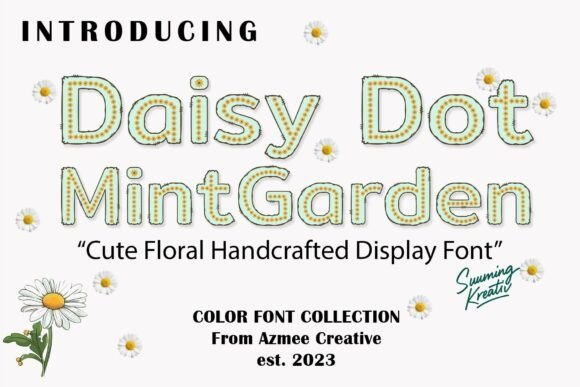
Discover the Whimsy of Daisydotmintgarden Font
Have you ever stumbled upon a font that makes you feel like you’re strolling through a sun-drenched garden on a warm spring morning? For many designers, that moment of creative joy is exactly what Daisydotmintgarden Font provides. This enchanting color font is designed to bring a touch of whimsy and charm to your designs, making it perfect for projects that require a happy, cozy, and creative vibe.
Daisydotmintgarden Font is a handcrafted color font that features a delightful, thick outline and a decorative dot-and-daisy pattern filling the letterforms. With its fresh mint green and sunny yellow palette, this font is sure to capture the essence of a spring garden, making every word feel cute, happy, and vibrant. Whether you’re designing greeting cards, kids’ materials, or social media posts, Daisydotmintgarden Font is a valuable addition to any designer’s toolkit.
Daisydotmintgarden Font Key Features
- Unique Characteristics: The Daisydotmintgarden font features a distinctive blend of modern and vintage elements, with intricate details and ornaments that evoke a sense of whimsy and elegance.
Daisydotmintgarden Font Review
I recently had the chance to work with the ‘Daisydotmintgarden Font’, and I must say, it’s a unique and lovely addition to any design project. Here are some of its strengths and weaknesses that I observed.
- The font’s playful and whimsical feel is perfect for projects that need a touch of elegance and sophistication.
- The variety of weights and styles available make it easy to customize and adapt to different design needs.
- The font’s legibility is excellent, even at smaller sizes, making it suitable for a wide range of applications.
Limitsations ⚠️
- The font may not be suitable for projects that require a more modern or edgy feel, as it has a distinctly vintage and feminine vibe.
- The font’s complexity can make it difficult to pair with other fonts, so it’s best to use it as a standalone choice.
The ‘Daisydotmintgarden Font’ is a beautiful and versatile choice for designers looking to add a touch of elegance and whimsy to their projects. While it may have some limitations, its unique charm and excellent legibility make it a great addition to any design arsenal.
For the best results, use the Daisydotmintgarden font in conjunction with a light-colored background to make the font stand out.
Experiment with different font sizes and styles to create a visually appealing design.
Use the Daisydotmintgarden font for titles, headings, and other emphasis elements to add a touch of whimsy to your design.